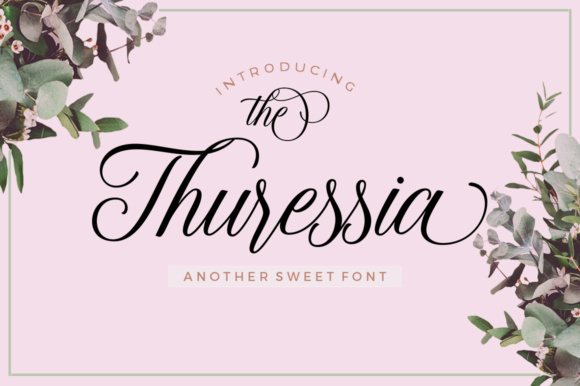
Meet The Thuressia Script Font, a captivating work of art crafted by the renowned Picatype Studio. Its exquisite calligraphy style exudes a captivating charm, seamlessly blending the allure of classic penmanship with a touch of modern elegance. Each letter dances across the page, adorned with an array of breathtaking swashes that add a touch of whimsical flair.
With The Thuressia Script Font, you'll embark on a journey of creative expression. Its versatility knows no bounds, lending itself effortlessly to a myriad of captivating designs. From the timeless elegance of wedding invitations to the bold allure of product packaging, its presence transforms ordinary creations into extraordinary masterpieces.
Imagine your brand adorned with the enchanting allure of The Thuressia Script Font. Its graceful curves and delicate flourishes will elevate your brand identity to new heights, leaving an unforgettable impression on your audience. Let its captivating charm weave a spellbinding narrative, drawing customers into the captivating world you create.
Unleash your creativity with The Thuressia Script Font. Allow its enchanting beauty to inspire you, spark your imagination, and guide you towards breathtaking designs that will leave a lasting impact. With this extraordinary font at your fingertips, your creative potential knows no limits.